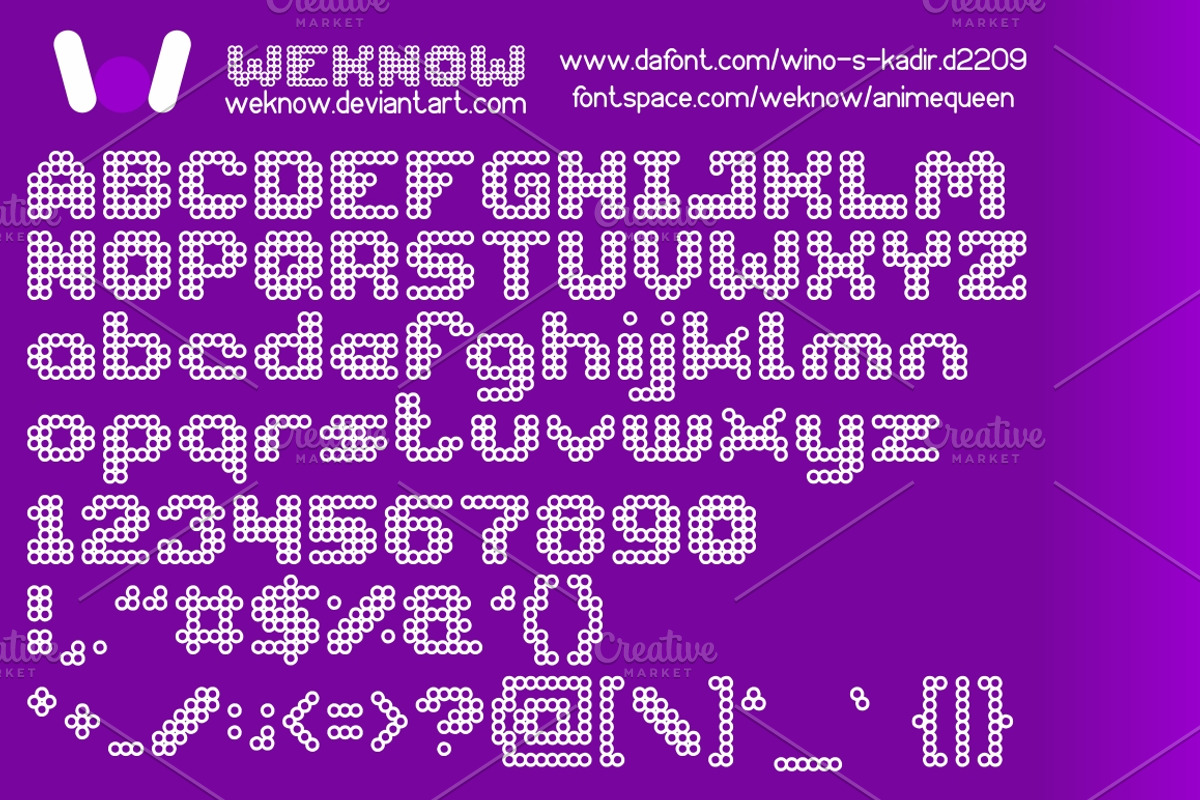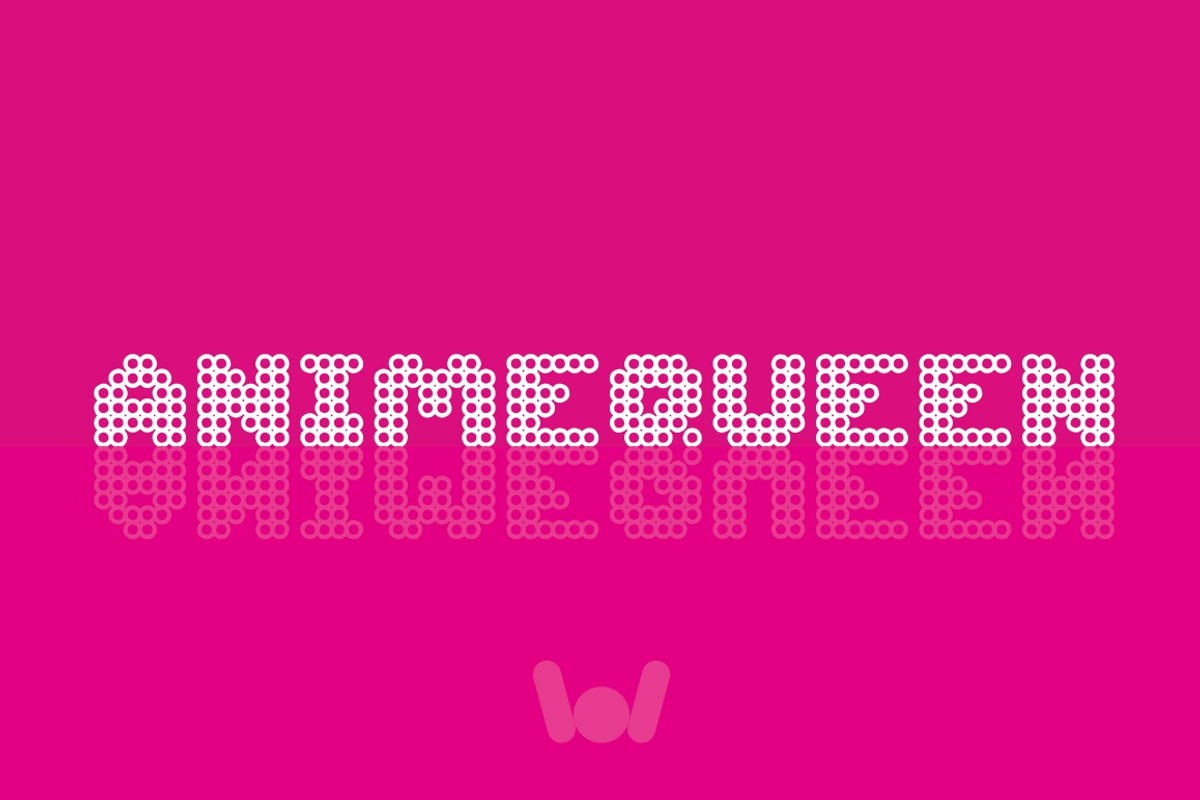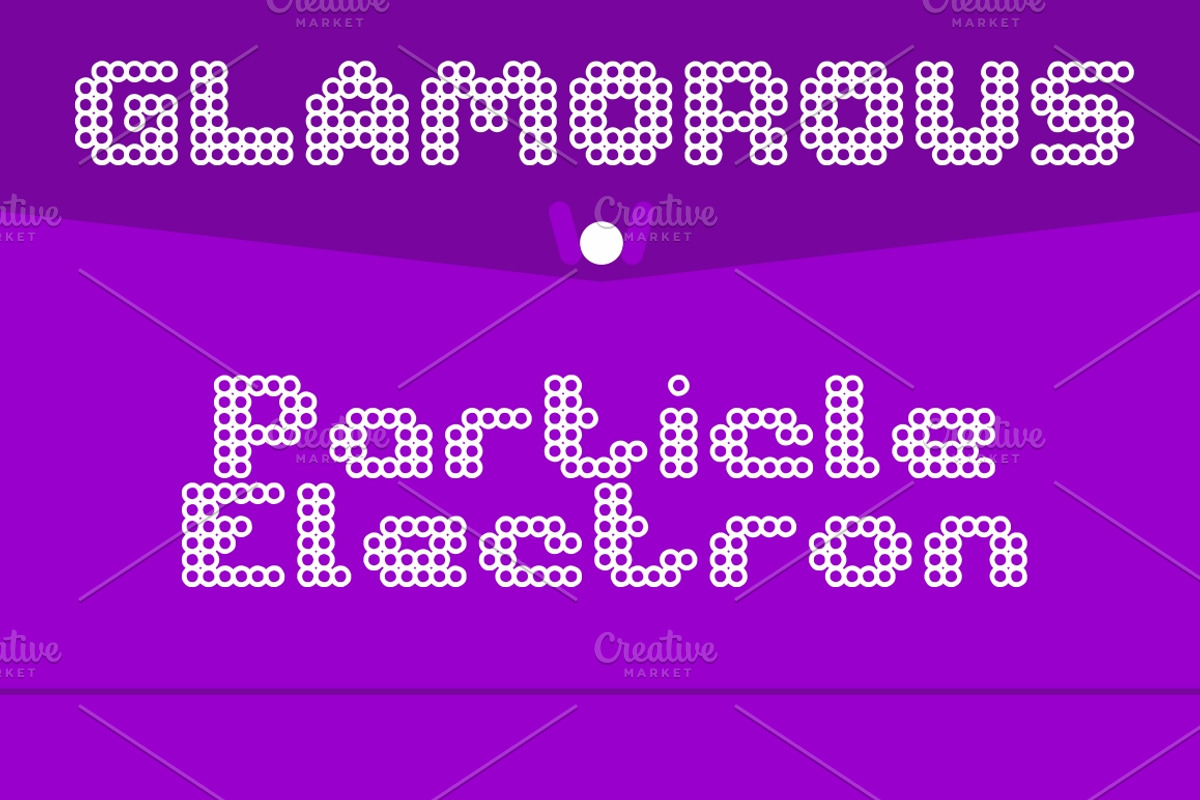
animequeen font
animequeen font by weknow is a font selected for branding, posters, packaging, typography.
Why animequeen font is worth a look
animequeen font by weknow fits naturally into Branding, posters, packaging, typography.